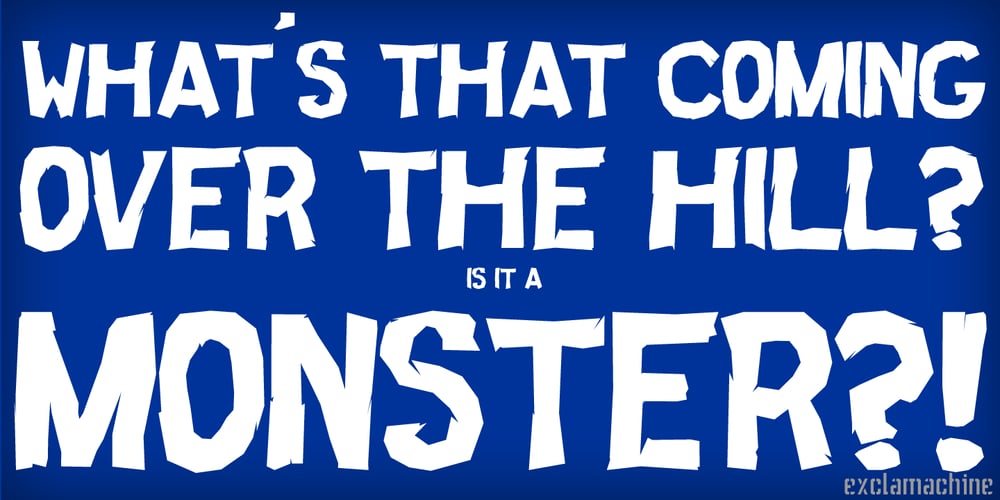
FinFang
FinFang Font Family was designed by Choz Cunningham and published by !Exclamachine. FinFang contains 1 styles and family package options. Make a splash, or perhaps a crash, with this energetic typeface. FinFang is immediately readable, but loaded with character.